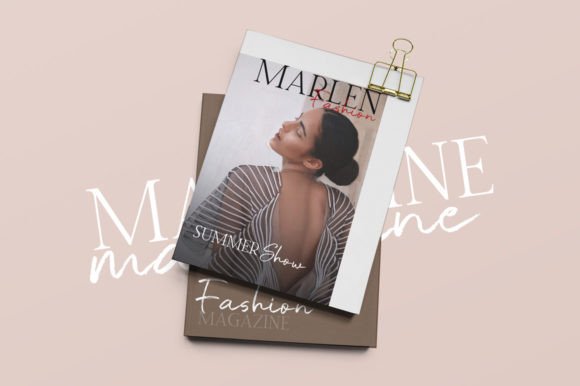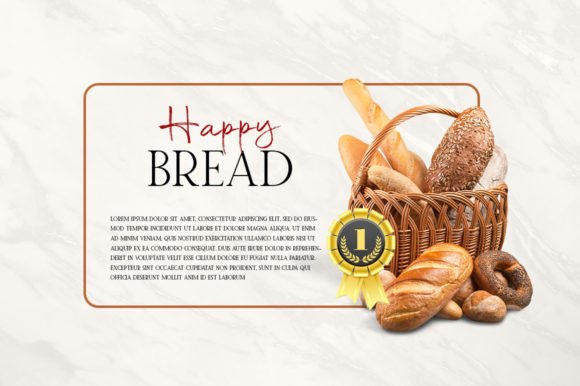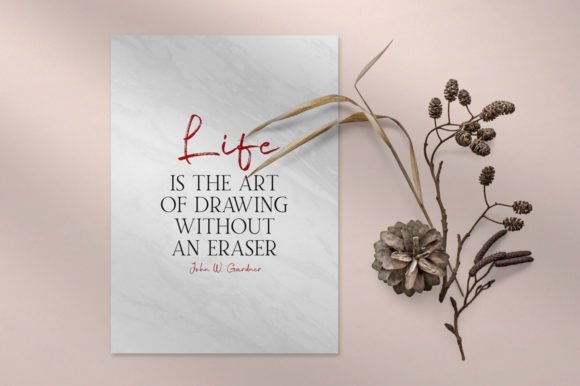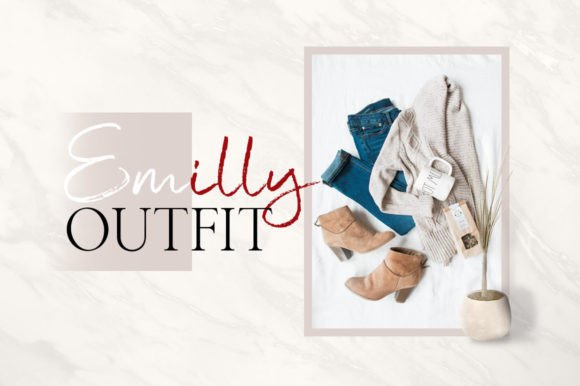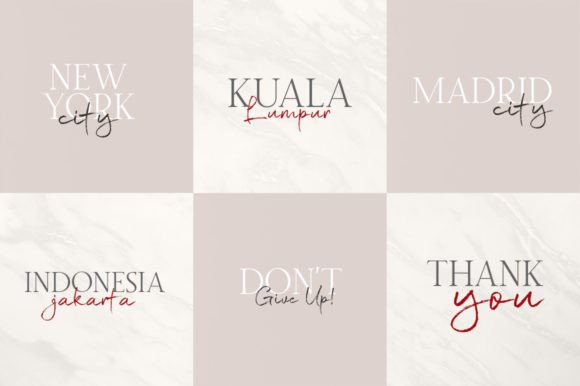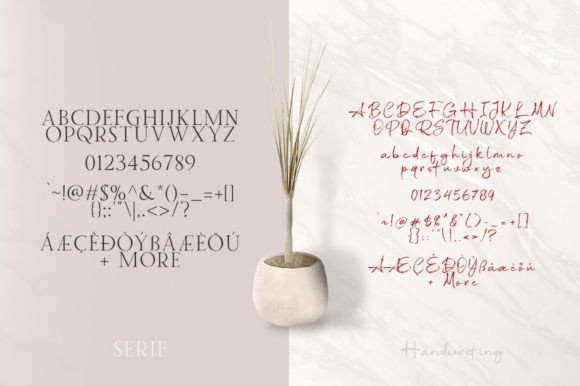
Twice Writing is a modern duo font style, script brush and serif. It is perfect for posters, logos, magazines, book covers, banners, and many more! Get this amazing font, and use it to create lovely designs. It can easily be matched to an incredibly large set of projects, so add it to your creative ideas and notice how it makes them stand out!
Twice Writing Font